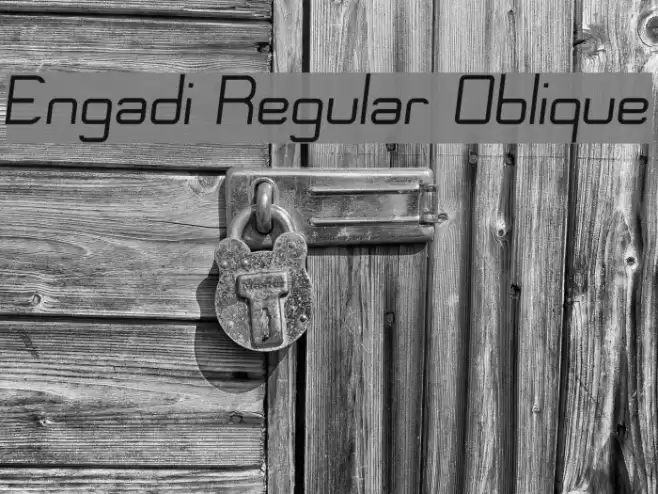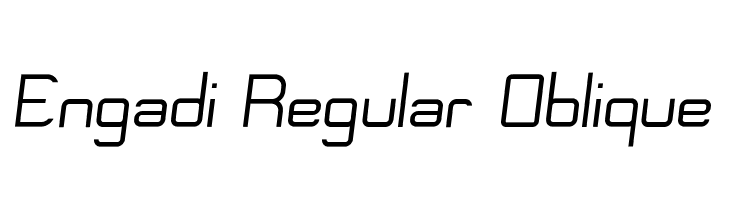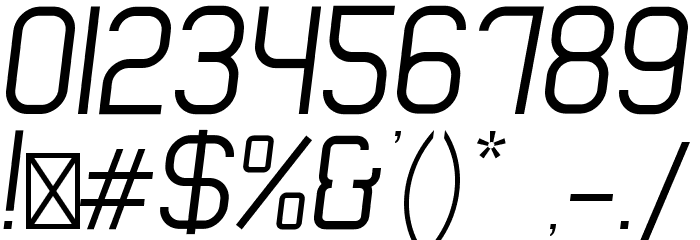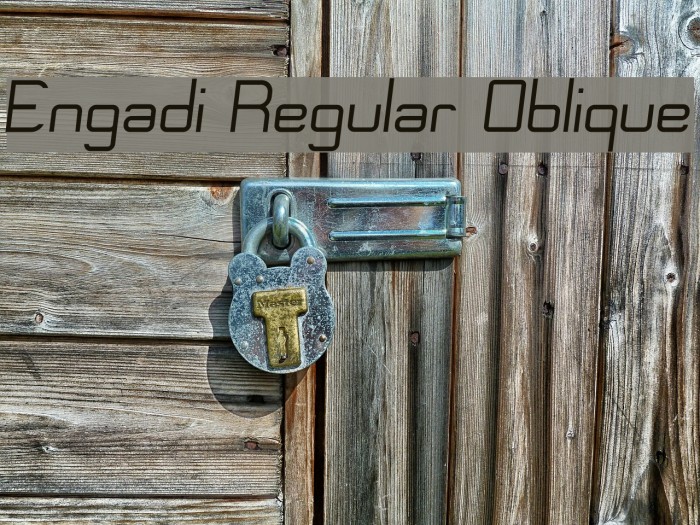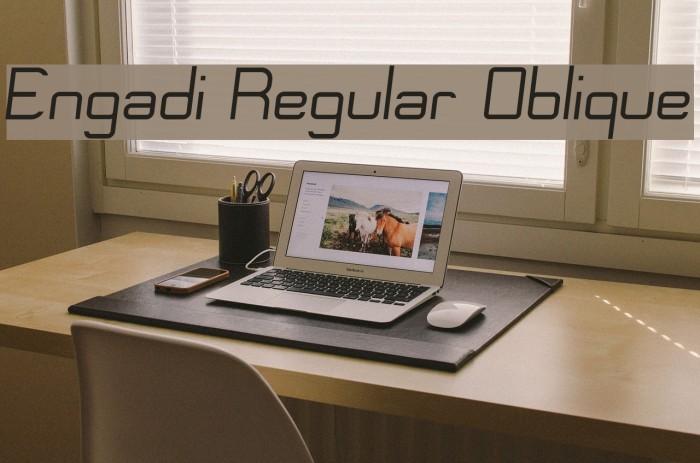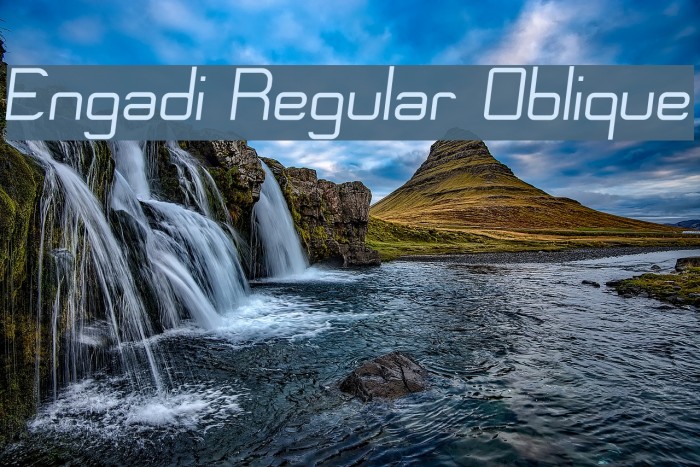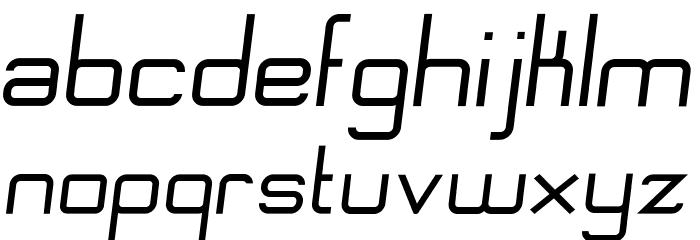
Engadi Regular Oblique Font
Engadi Regular Oblique Description
This font features a sleek, modern design with a slight oblique slant, giving it a dynamic and forward-moving appearance. The characters are constructed with clean, geometric lines, providing a sense of precision and clarity. Uppercase and lowercase letters maintain a consistent style, with rounded edges that soften the overall look. The numerals are distinct and easy to read, complementing the alphabetic characters. Special characters are included, maintaining the same stylistic integrity. This font's design is both functional and aesthetically pleasing, making it suitable for a variety of applications.
A modern, oblique font with clean, geometric lines and rounded edges from Sans Serif fonts.